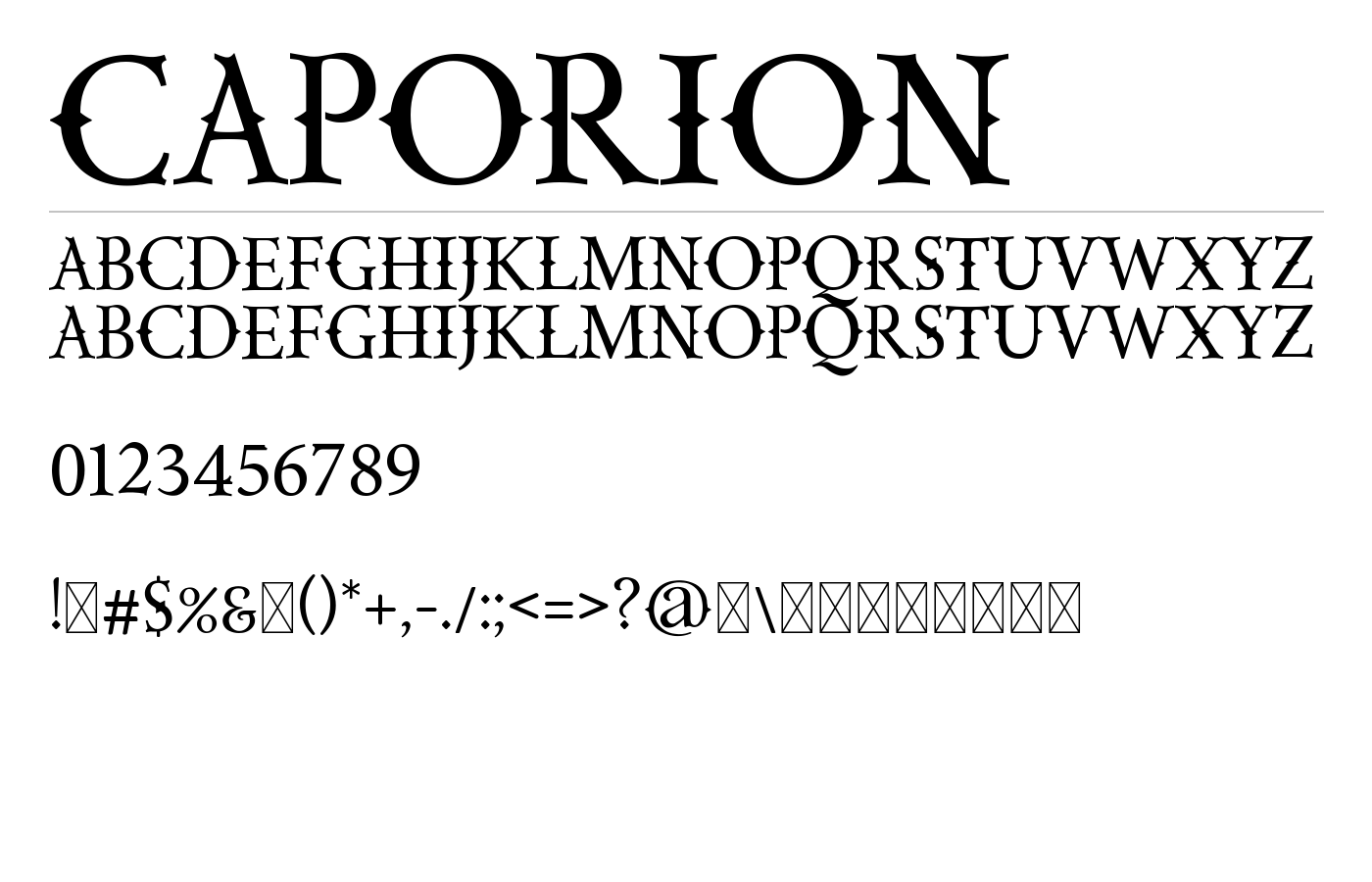
CAPORION is a distinctive serif font with a strong, classic character marked by high contrast between thick and thin strokes and sharp, bracketed serifs that add elegance and a vintage feel. Its uppercase-only design, with unique, slightly ornamental details in characters like Q and R, makes it ideal for logos, headlines, and branding that seek to convey sophistication and tradition. This font works best in display settings where its artistic flair and formal style can stand out.
CAPORION Font
About CAPORION Font